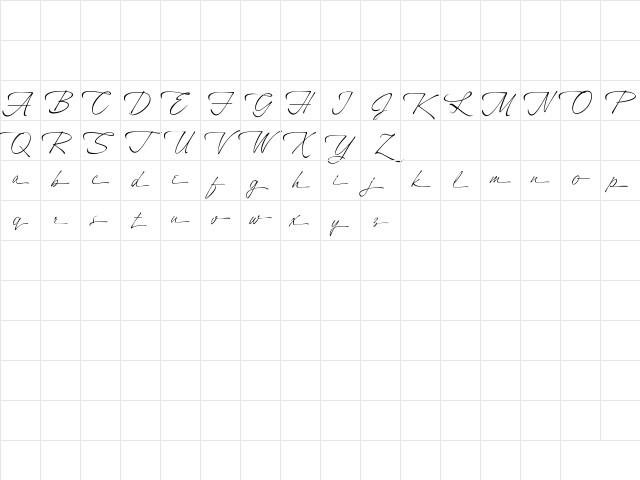
A&S Heartbeat swash Regular Free Font
A&S Heartbeat swash Regular
Foundry: SIGNFONTS/Art&Sign Studio
Designer: Steve Contreras
Design Context for A&S Heartbeat swash
A&S Heartbeat swash flows with the natural rhythm of handwritten lettering, making it ideal for designs that call for warmth and personal expression.
Font Pairing: Combine A&S Heartbeat swash with a simple geometric sans for maximum contrast - the tension between flowing curves and clean structure is a classic typographic pairing.
Pro Tip: Use A&S Heartbeat swash for short runs of text - names, titles, or taglines. Extended body copy in script faces tires the eye quickly.